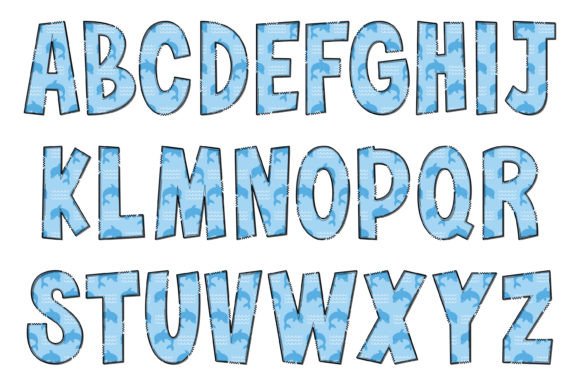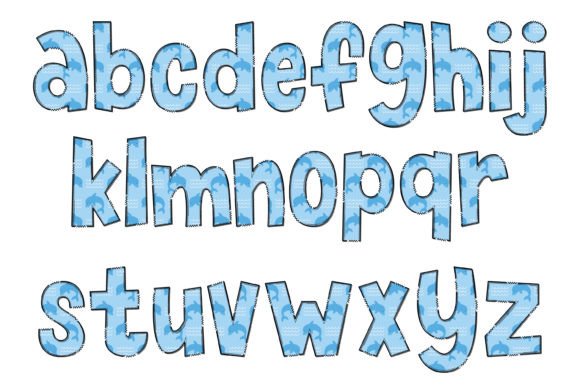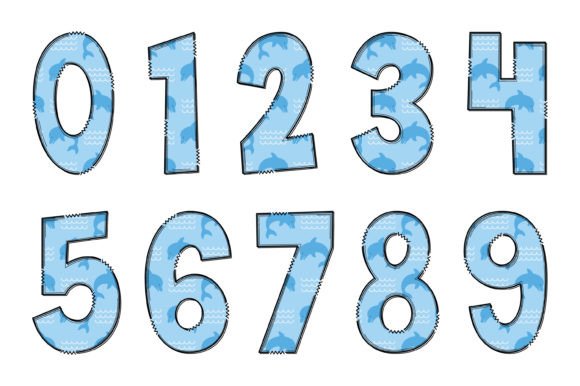
Summer Vibes in Every Letter: Introducing the Dolphin Font
As a designer, there’s nothing quite like the feeling of landing on the perfect font to bring your summer project to life. It’s that moment when the colors, textures, and overall aesthetic come together in perfect harmony, and you know you’ve created something truly special. For me, that moment happened when I discovered the Dolphin Font – a vibrant, summer-themed color font that captures the essence of the season in every letter.
The Dolphin Font is a playful and whimsical masterpiece that’s perfect for designers looking to add a touch of sunshine to their projects. With its burst of vivid colors and carefree spirit, it’s the perfect addition to party invitations, summer event posters, travel brochures, or social media graphics. Whether you’re a graphic designer, illustrator, or simply someone who loves to create, the Dolphin Font is a valuable tool that’s sure to bring a smile to your face and transport your viewers to a sun-drenched paradise.
- Unique Characteristic: The Dolphin Font features a unique, hand-drawn style with a playful and whimsical feel, making it ideal for creative and artistic projects.
Dolphin Font Review
Overall, I found the Dolphin Font to be an interesting and somewhat unique font choice. ✨ It’s definitely eye-catching and could work well for certain projects or branding.
Here are some of the things that I think work well:
- ✨ The font has a fun and playful feel to it, making it great for children’s books, games, or other projects where a lighthearted tone is desired.
- ✨ The font is highly customizable, with a wide range of size and color options available.
- ✨ The font is also highly legible, making it easy to read even at smaller sizes.
- ⚠️ The font may not be suitable for more formal or professional projects, as its playful feel may come across as unprofessional.
- ⚠️ The font may also be difficult to use for longer blocks of text, as its unique letterforms can make it harder to read.
- ⚠️ Finally, the font may not be as versatile as some other font options, as its playful feel may not be suitable for a wide range of projects.
Overall, I think the Dolphin Font is a fun and unique option that could work well for certain projects. However, it’s not suitable for every project, and its limitations should be carefully considered before choosing it.
Tips: Use the Dolphin Font for headings and titles to create a playful and whimsical look. Experiment with different font sizes and colors to achieve the desired effect.
Tips: Use the Dolphin Font for creative and artistic projects, such as illustrations or graphics. Experiment with different font sizes and colors to create a unique look.
Tips: Use the Dolphin Font for presentations or documents that require a fun and playful tone. Experiment with different font sizes and colors to create a visually appealing design.
The Dolphin Font is suitable for a variety of projects, including:
1. Children’s books or educational materials.
2. Advertising and marketing materials.
3. Social media graphics and posts.
4. Creative and artistic projects, such as illustrations or graphics.